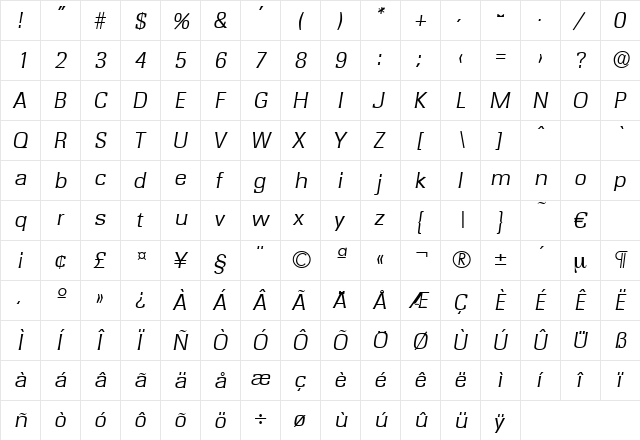
Rochester-LightIta Regular
Design Context for Rochester-LightIta Typeface
Rochester-LightIta takes a measured approach to typography — its balanced proportions and neutral character make it a reliable workhorse for both digital and print work. Its slender proportions lend an understated elegance to any composition.
Pro Tip: Use Rochester-LightIta in both headline and body roles to test its range before committing to a single application.